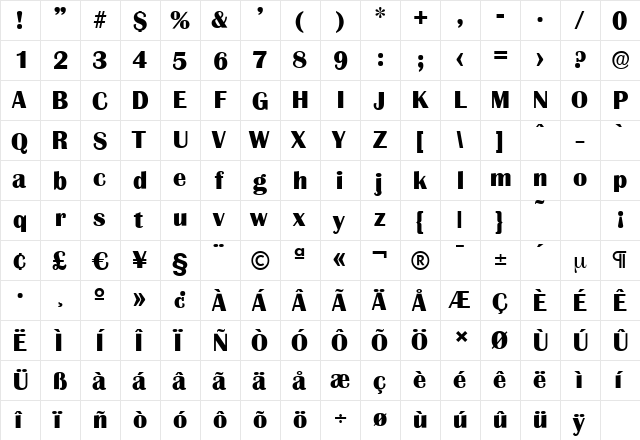
GrenobleSerial-Xbold Regular
Design Context for GrenobleSerial-Xbold Typeface
GrenobleSerial-Xbold offers clean, dependable letterforms without strong stylistic allegiance, making it a practical choice for designers who need flexibility. The heavy weight commands attention and anchors typographic hierarchies.
Pro Tip: Pair GrenobleSerial-Xbold with a font of contrasting weight or personality to build a more expressive typographic hierarchy.